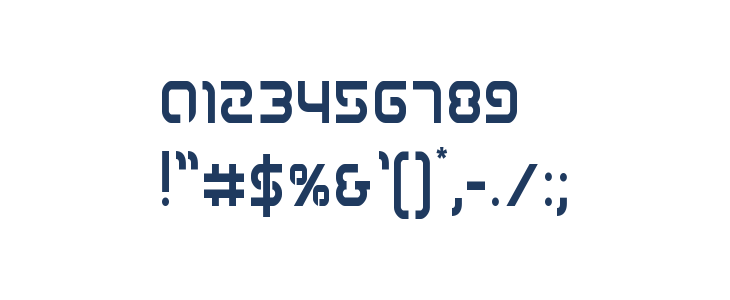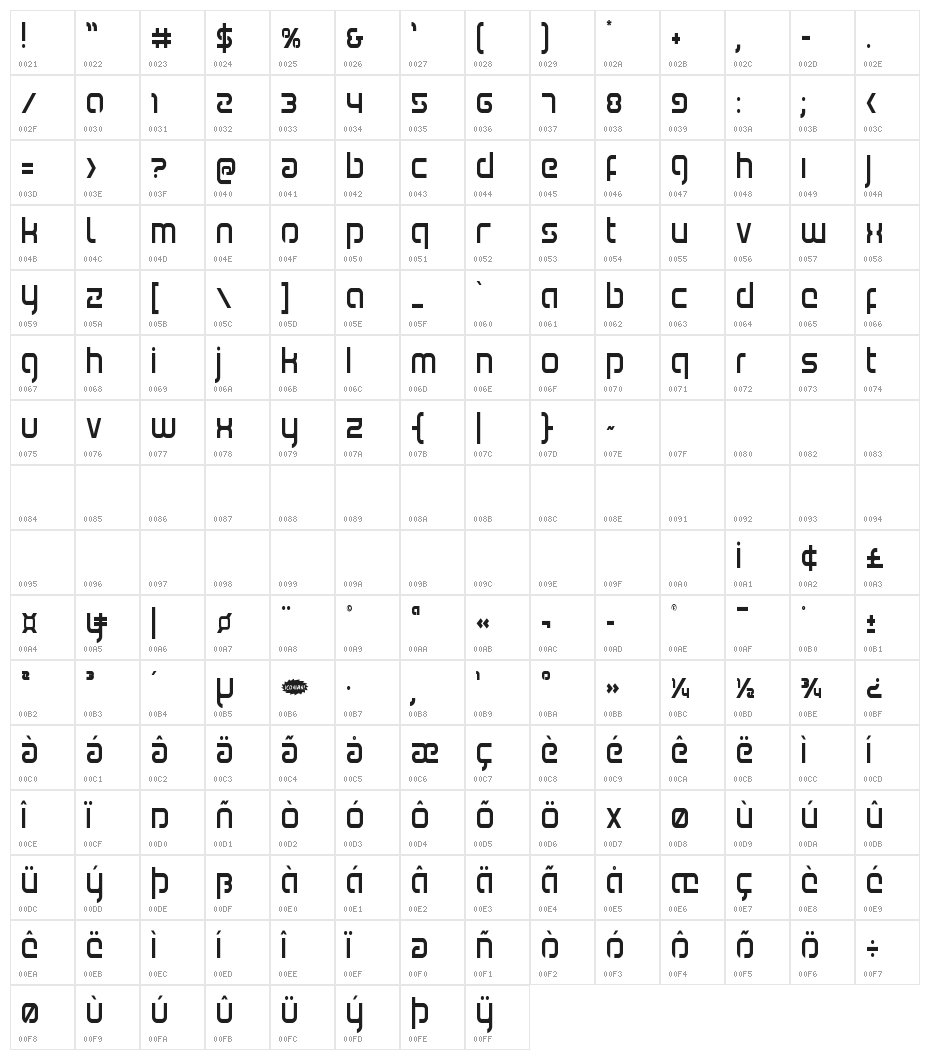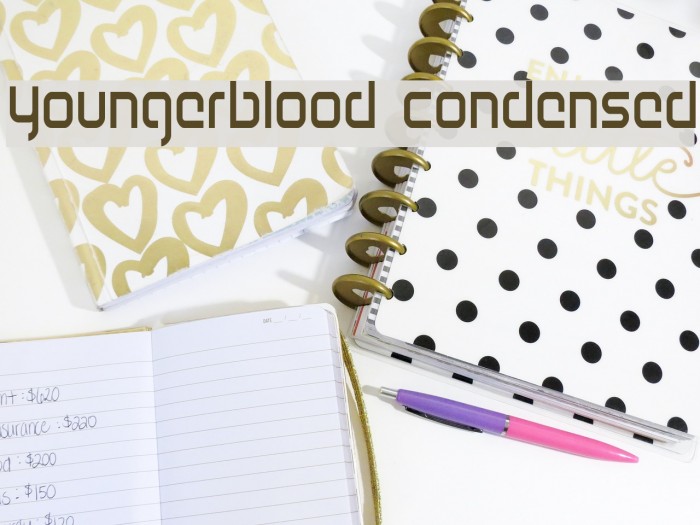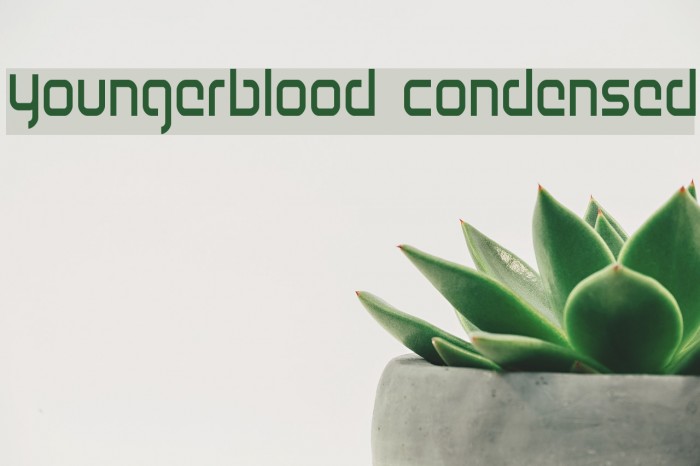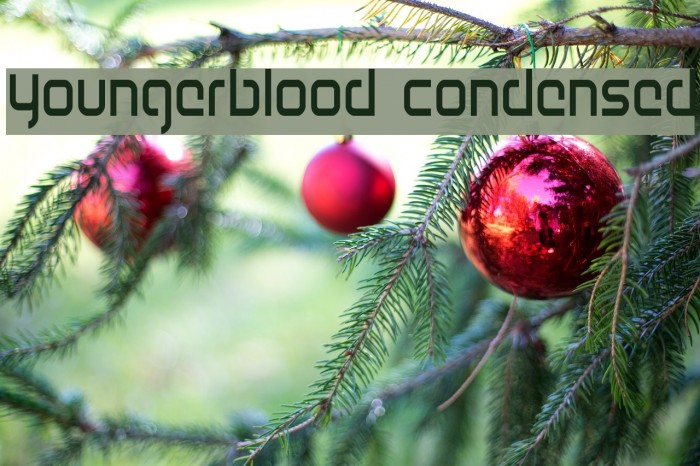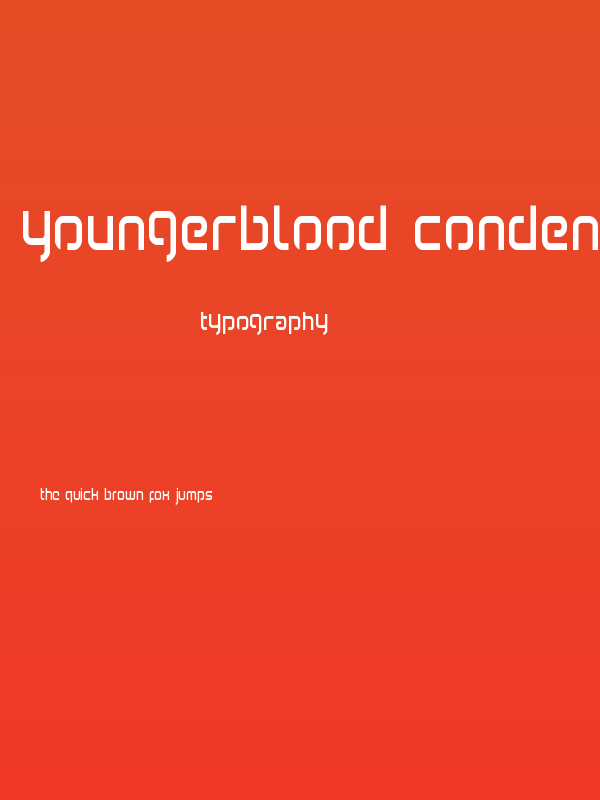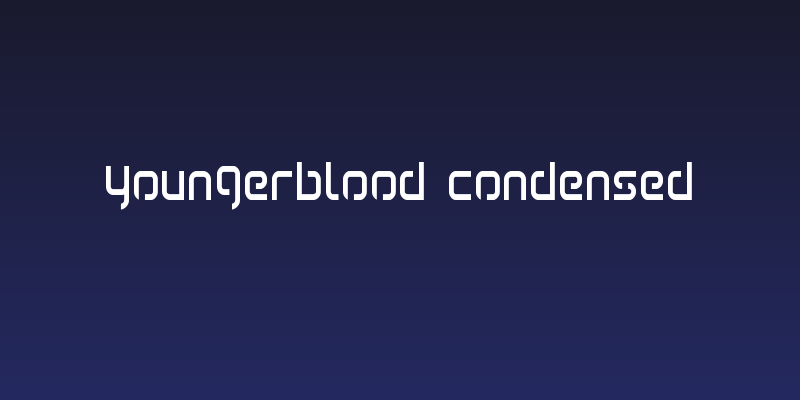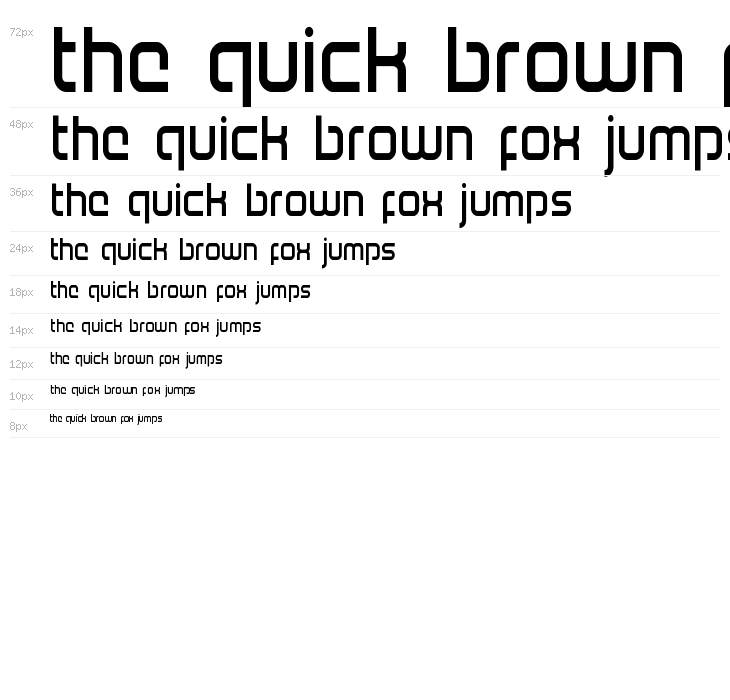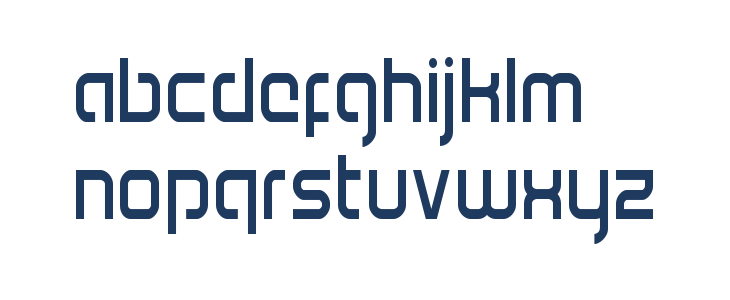
Youngerblood Condensed Font
Youngerblood Condensed Description
This font features a modern, geometric design with a condensed structure, emphasizing clean and minimalistic lines. The characters are uniform in height, with a consistent stroke width that gives it a sleek and streamlined appearance. The rounded edges and smooth curves add a touch of softness, while the overall angularity maintains a contemporary feel. The font is highly legible, making it suitable for both digital and print media. Its unique style is characterized by a futuristic aesthetic, ideal for projects that require a modern and innovative look.
| Use Case | Headlines, Logos, Digital interfaces |
| Proposed Projects | Ideal for tech branding, modern advertising, digital interfaces, and innovative product packaging. |